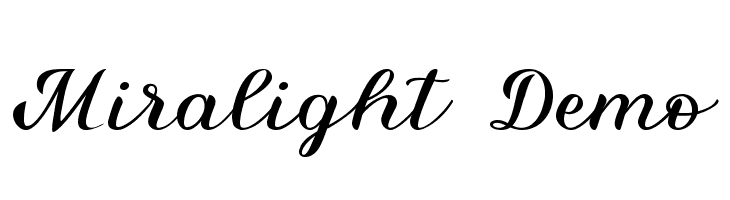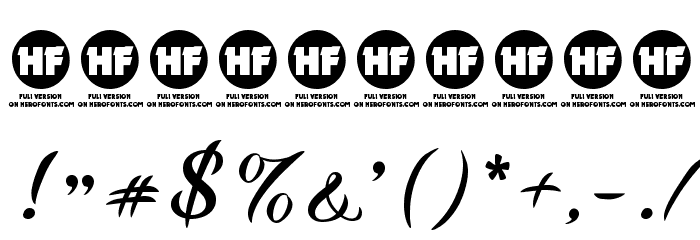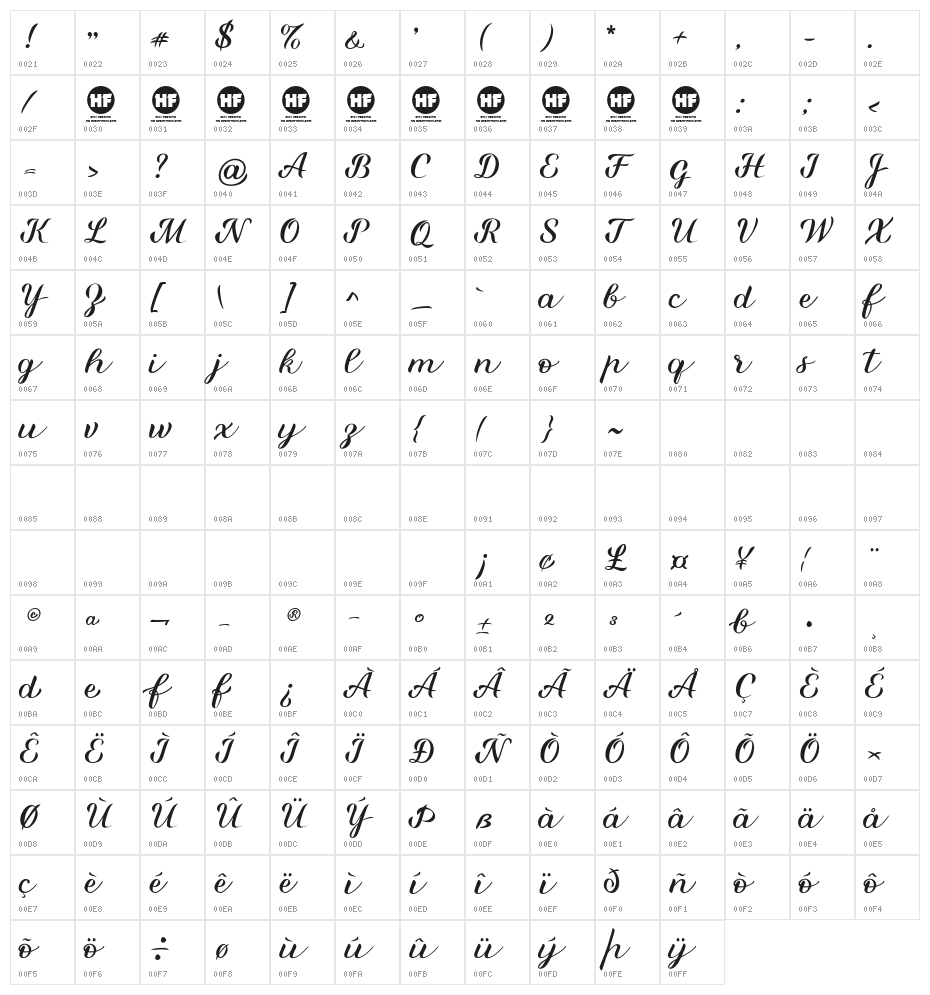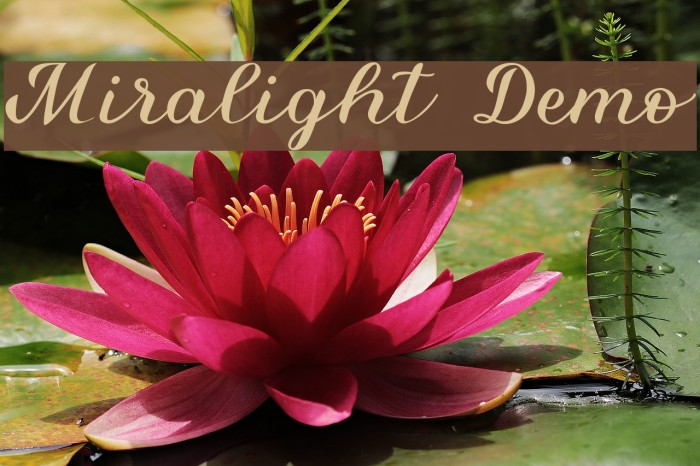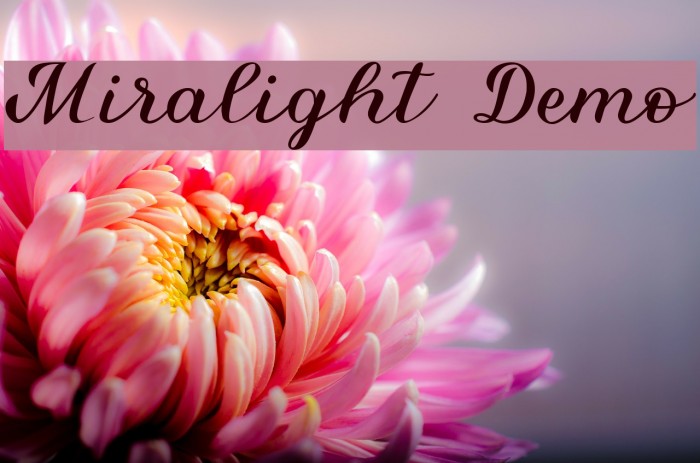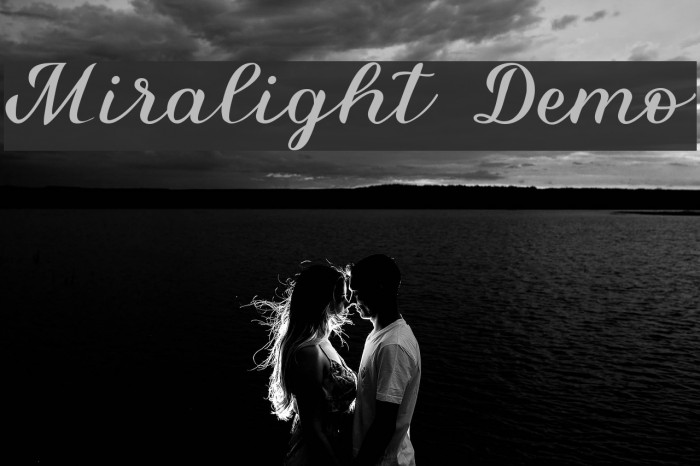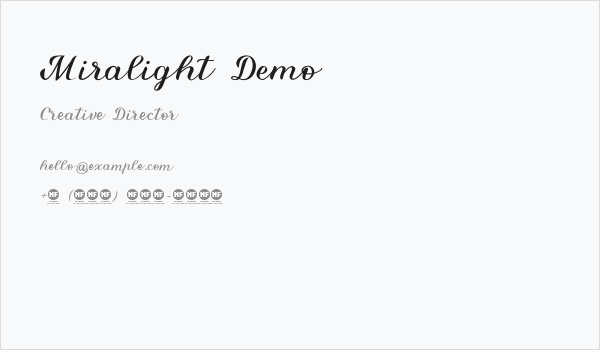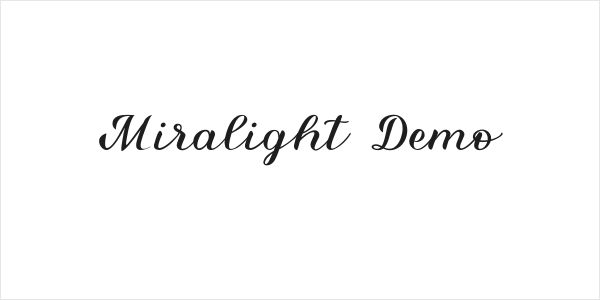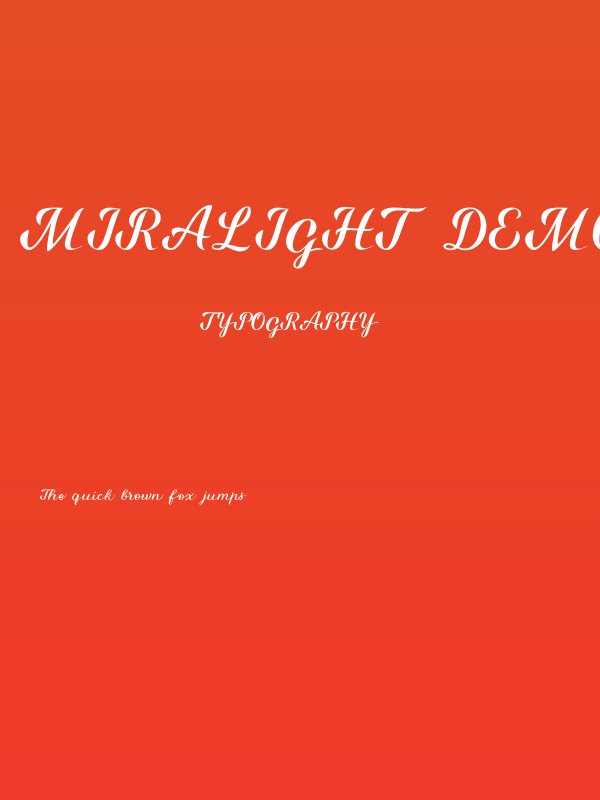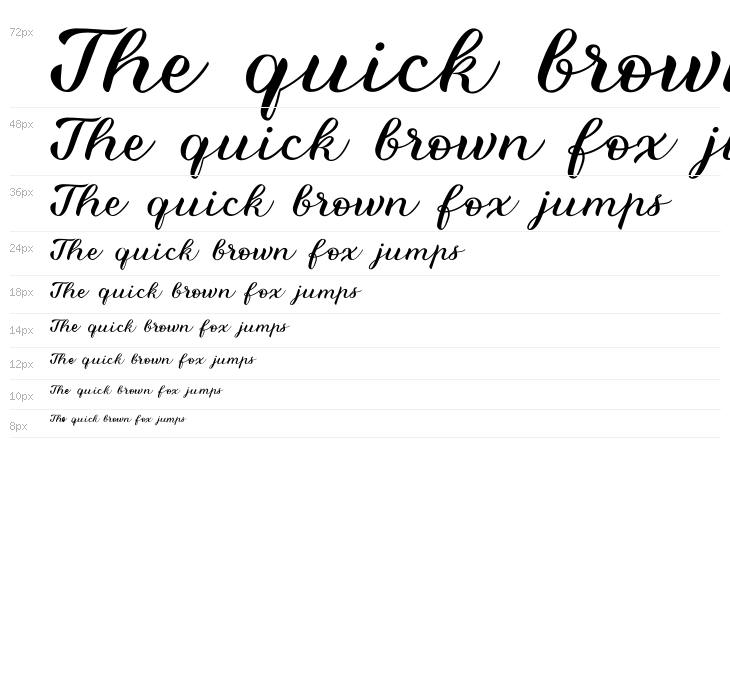
Miralight Demo Font
Miralight Demo Description
This elegant script font features a flowing, cursive style with smooth, rounded edges and a consistent stroke width. The uppercase letters are ornate, with sweeping curves and flourishes that give a sense of movement and grace. Lowercase letters maintain a similar fluidity, connecting seamlessly to create a harmonious and cohesive look. The font's design is both sophisticated and approachable, making it suitable for a variety of applications. Its balanced proportions and clear legibility ensure that it remains readable even in smaller sizes. The special characters are thoughtfully integrated, maintaining the overall aesthetic of the font.
Overall StyleElegant, Decorative
Use CaseHeadlines, Invitations, Branding
Proposed ProjectsIdeal for wedding invitations, elegant branding, greeting cards, and decorative headlines.